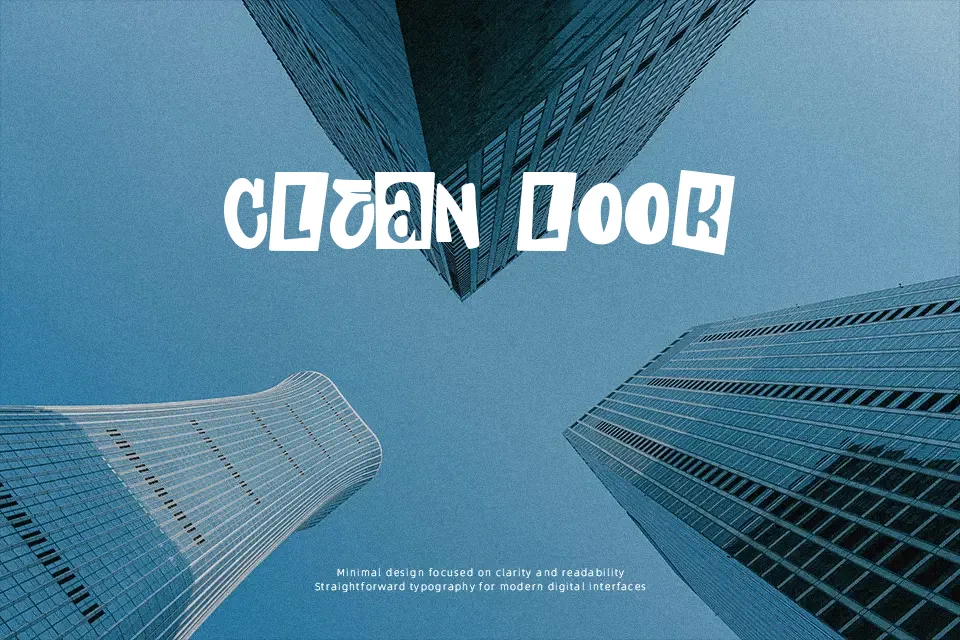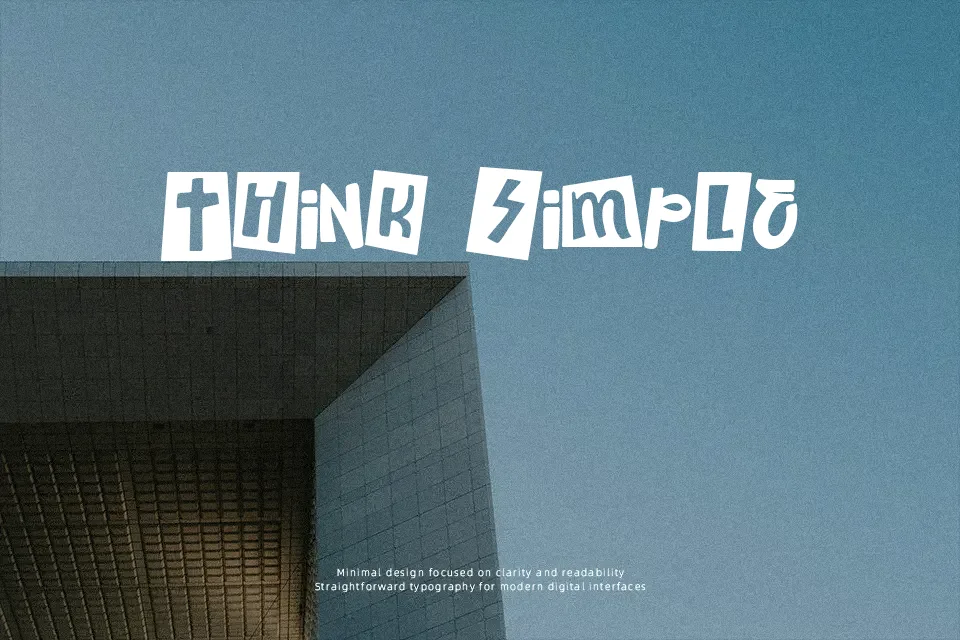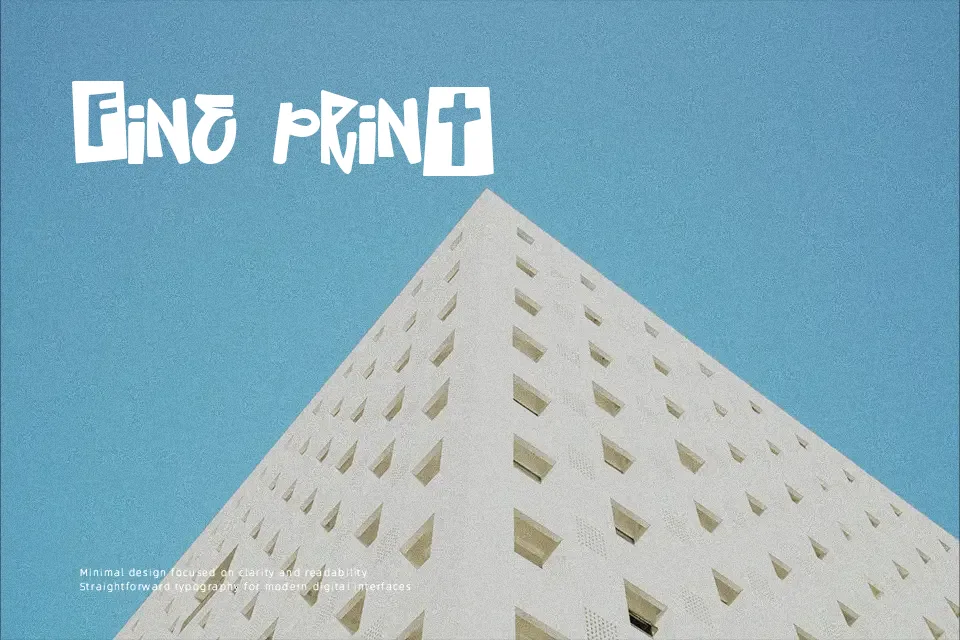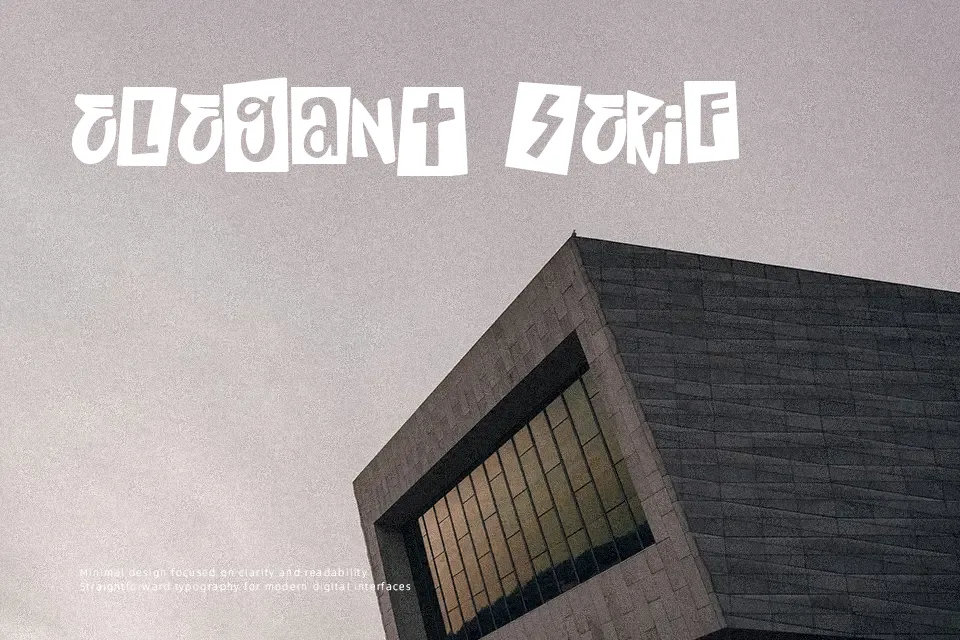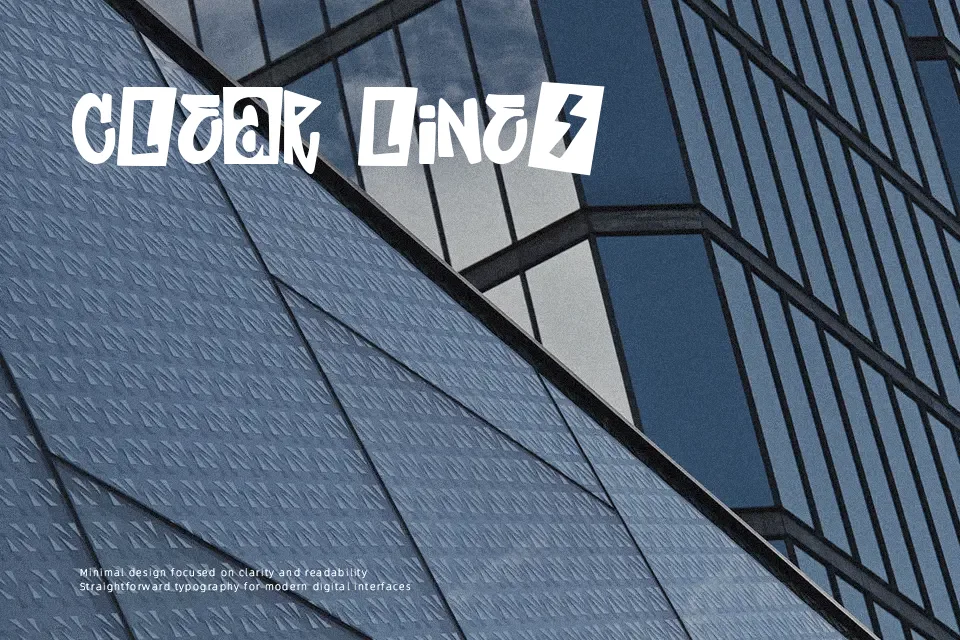
Punk Toons Channel Font
Characterized by aggressively distorted strokes and irregular proportions, the Punk Toons Channel Font brings a raw, jagged aesthetic to any layout. The letterforms feature chaotic baselines, erratic thickness, and rough terminals that emulate a gritty, rebellious cartoon style. Because of its heavily textured design, the typeface performs best when displayed at larger sizes, such as in striking music posters or edgy apparel graphics. The uneven spacing helps maintain the chaotic rhythm needed for high-impact headlines but severely reduces comfort during extended reading. Smaller captions and dense paragraphs will quickly lose clarity, making this design suitable almost exclusively for bold display purposes.
grunge music festival posters, streetwear apparel graphics, edgy cartoon title sequences
long paragraph text, small interface labels, corporate reports
Perfect for branding, headline, and music, with a bold and cartoon style.